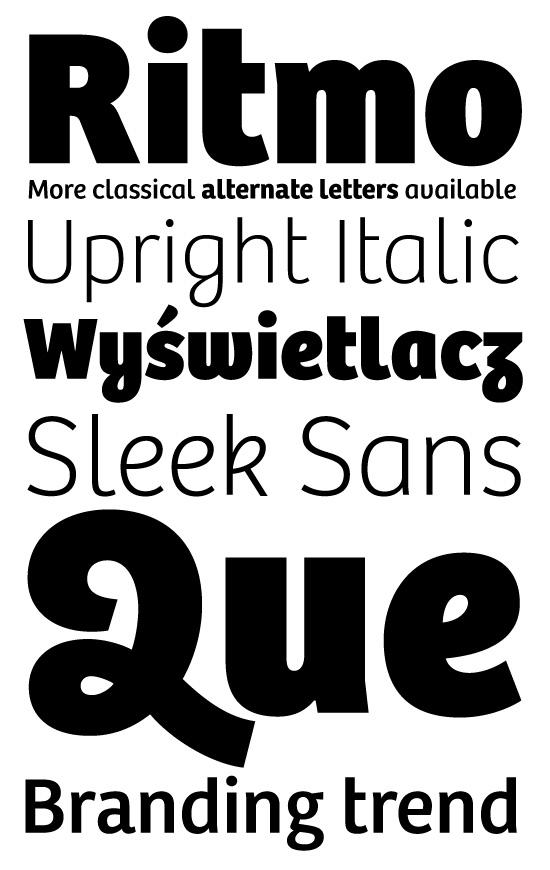
Bree (TypeTogether)
Bree, based on our own logotype, is a sleek sans serif that delivers a polished and
modern look and feel for branding or headline usage. Some of its most characteristic
features are the one-story 'a', the cursive 'e', the curves in the outstrokes of 'v' and
'w', the flourish 'Q' and the fluidity of shapes on 'g y z'. Alternate letters of these are
available when a more classical look is desired.
Clearly influenced by handwriting, Bree shows a pleasant mixture of rather unobtrusive
capitals and the more vivid lowercase letters, that give the text a spirited and lively
appearance. It is definitely a memorable upright italic!
Bree Basic Extended features four sets of numerals, ligatures, alternate characters,
fractions, scientific superior/inferior figures and language support for over 40 languages
that use the Latin script.
Designed by Veronika Burian and José Scaglione.